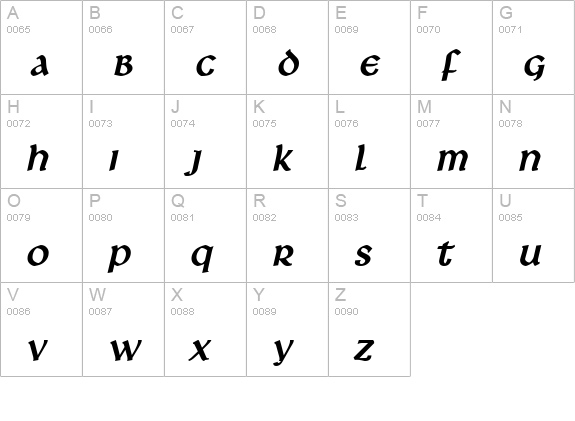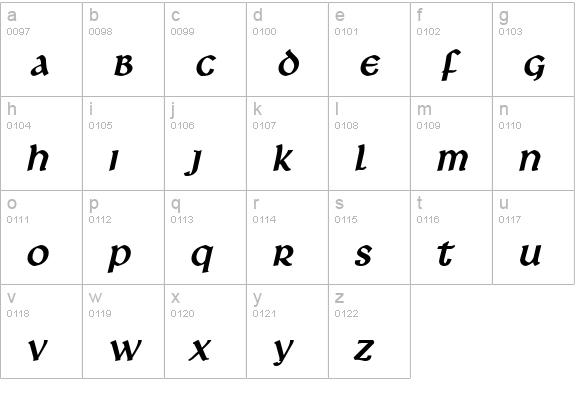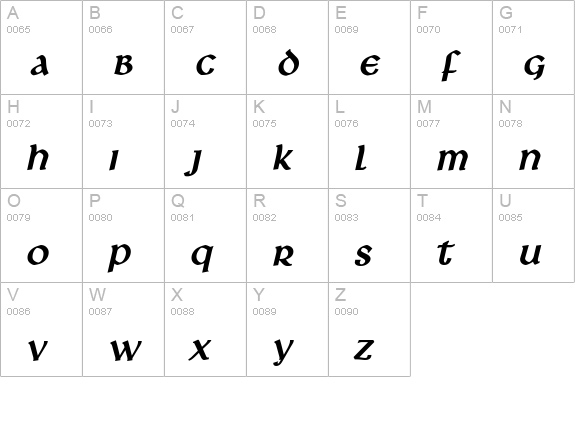
Introducing Leo BoldItalic, a dynamic and captivating font that effortlessly combines boldness and elegance. With its unique blend of thick strokes and graceful curves, Leo BoldItalic is designed to make a bold statement while adding a touch of sophistication to any project. This font's strong and distinct presence is perfect for headlines, titles, and branding materials that demand attention. Its italicized slant adds a sense of movement and flair, making Leo BoldItalic an ideal choice for projects that require a touch of creativity and modernity. Leo BoldItalic is not only visually stunning but also versatile and adaptable. Whether you're creating a logo, designing a poster, or crafting a website, this font's flexibility allows it to seamlessly integrate into any design concept or theme. What makes Leo BoldItalic even more appealing is that it is freely available to download at FontsMarket.com. This means that you can effortlessly add this exceptional typeface to your font library without any cost or hassle. Embrace the freedom to enhance your design projects with the captivating Leo BoldItalic font, and watch as your creations come to life with a bold and confident charm.